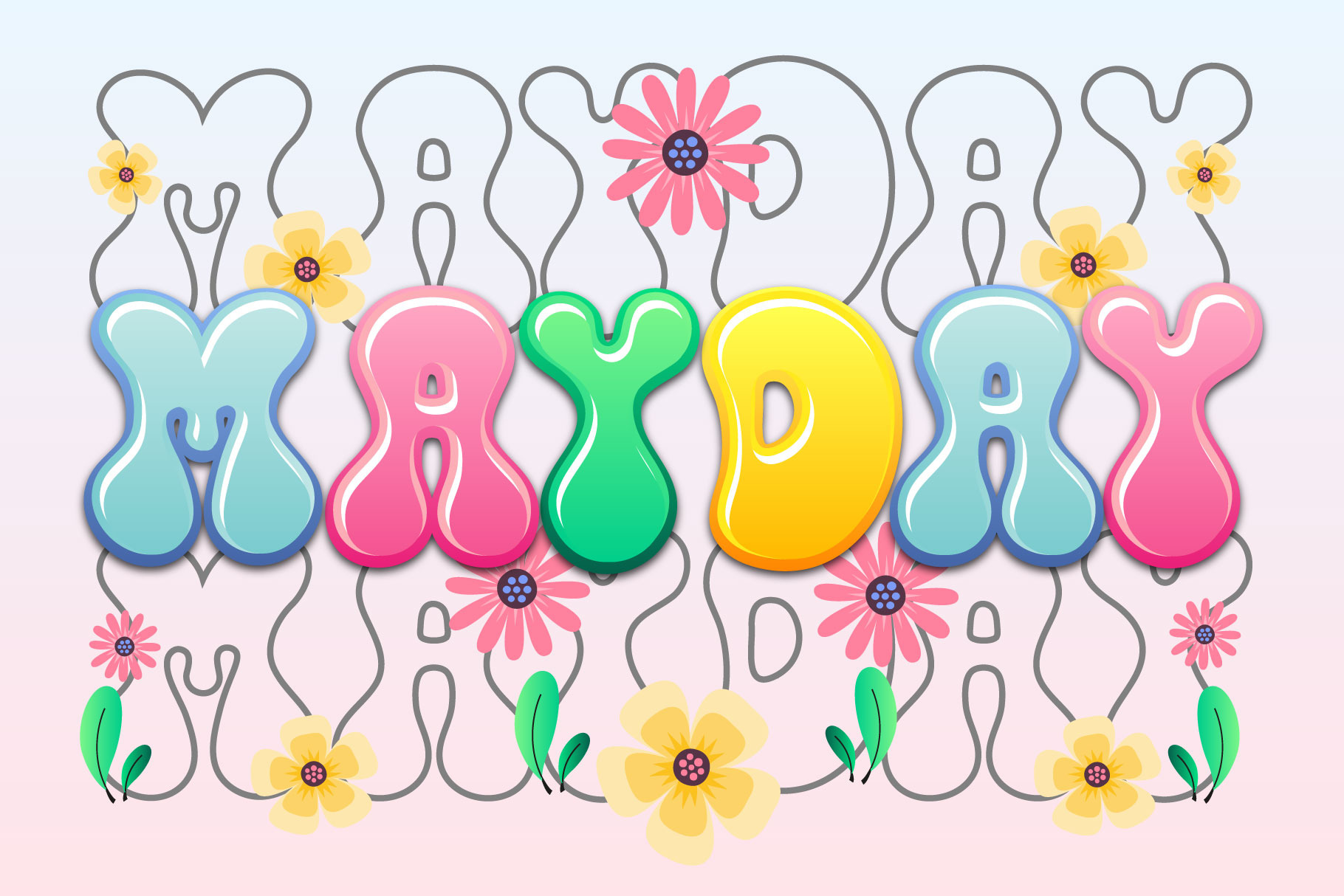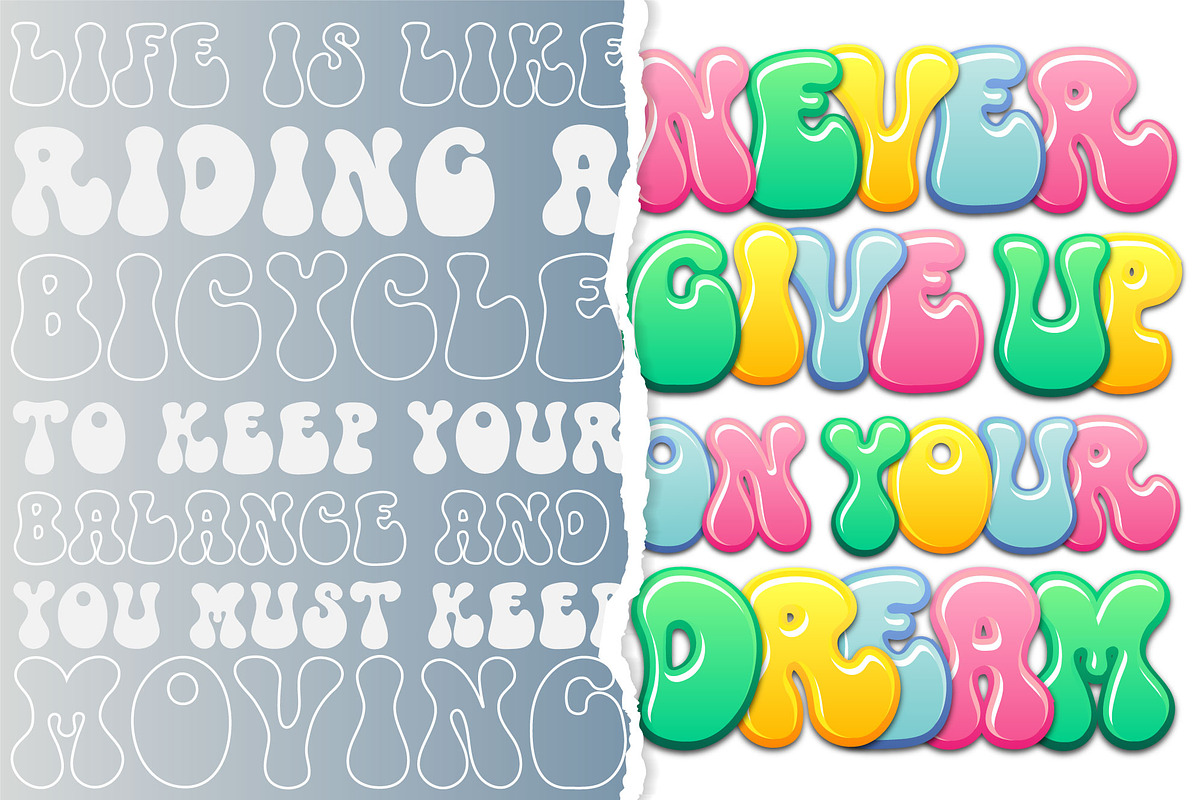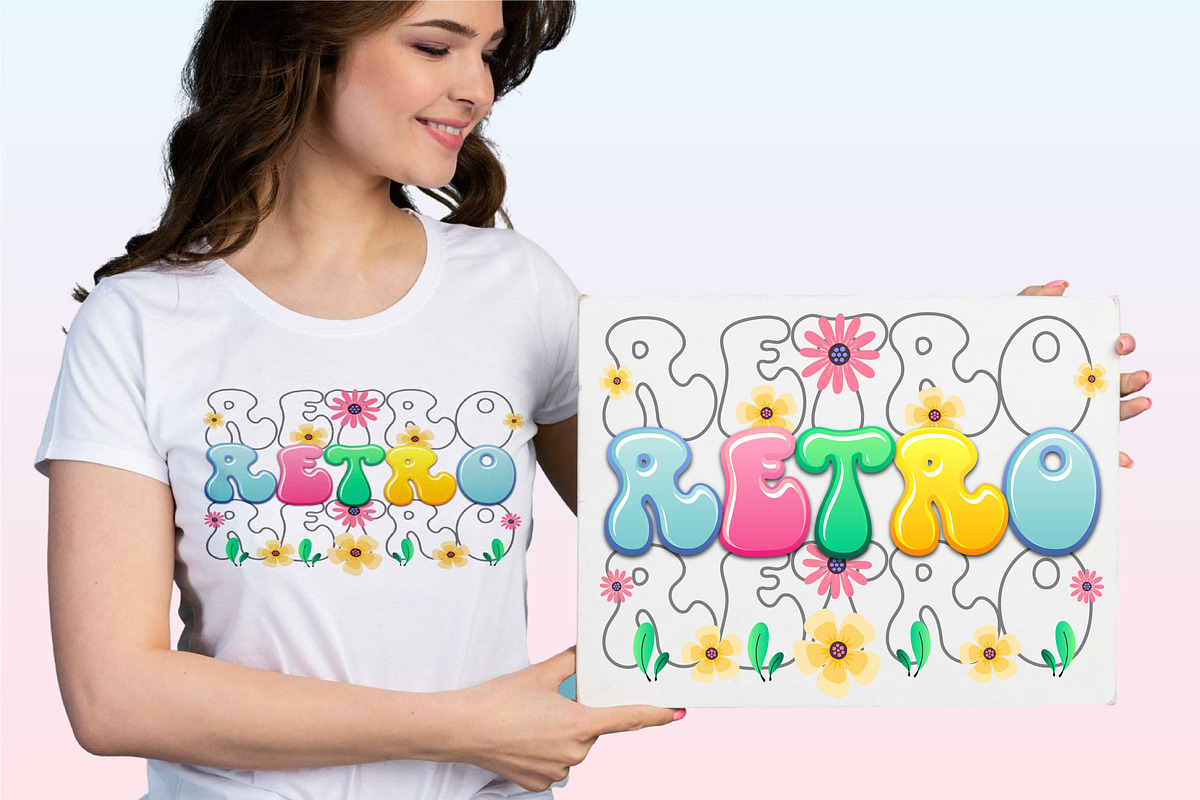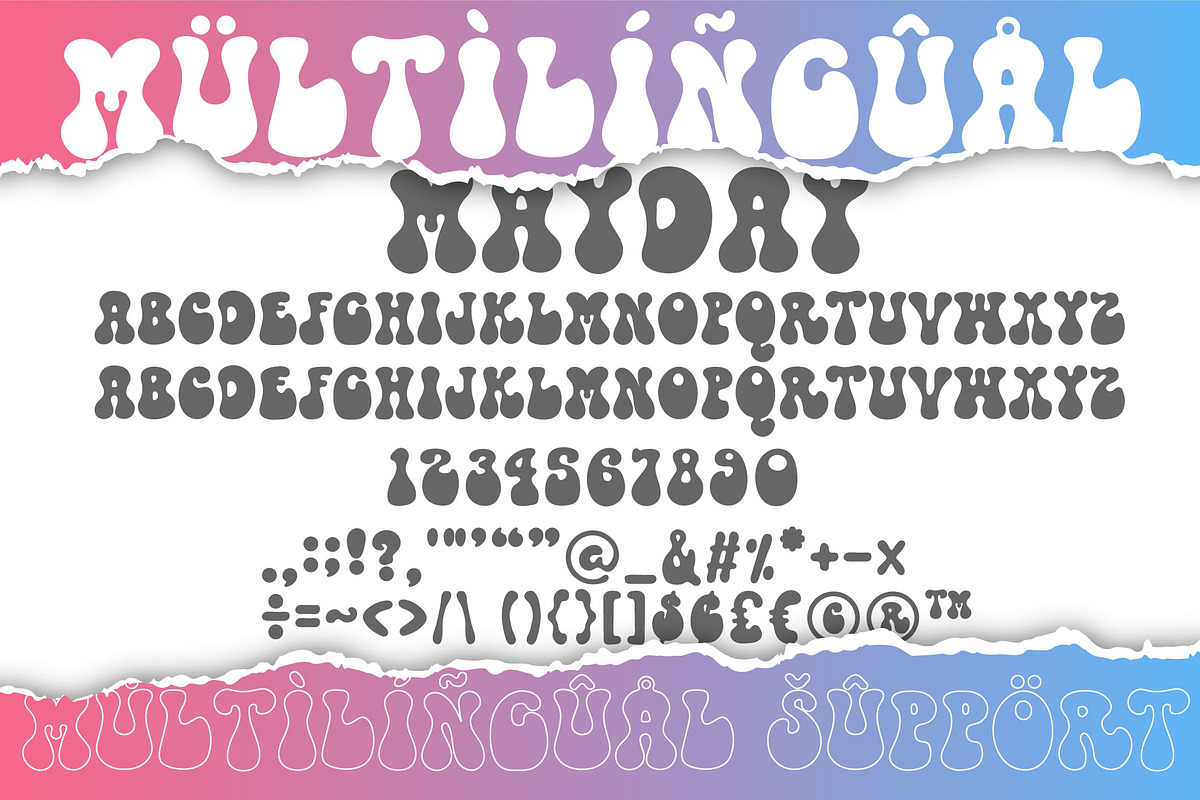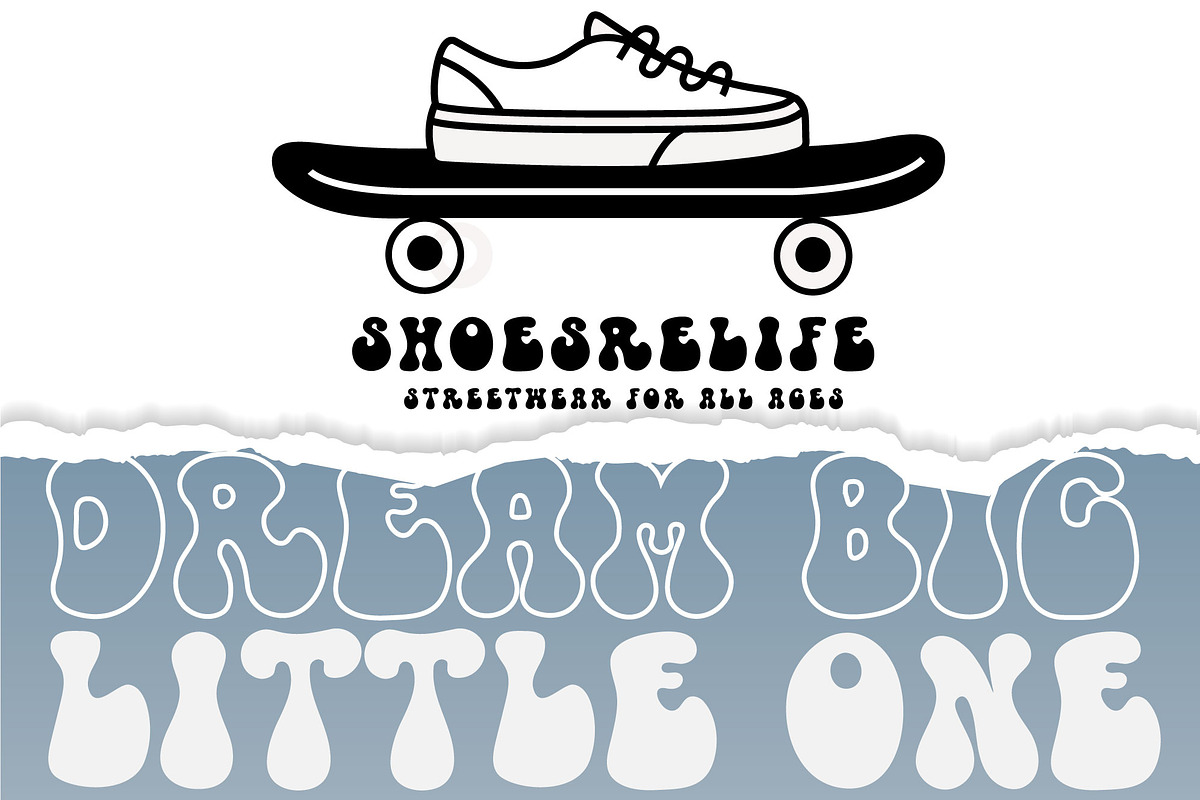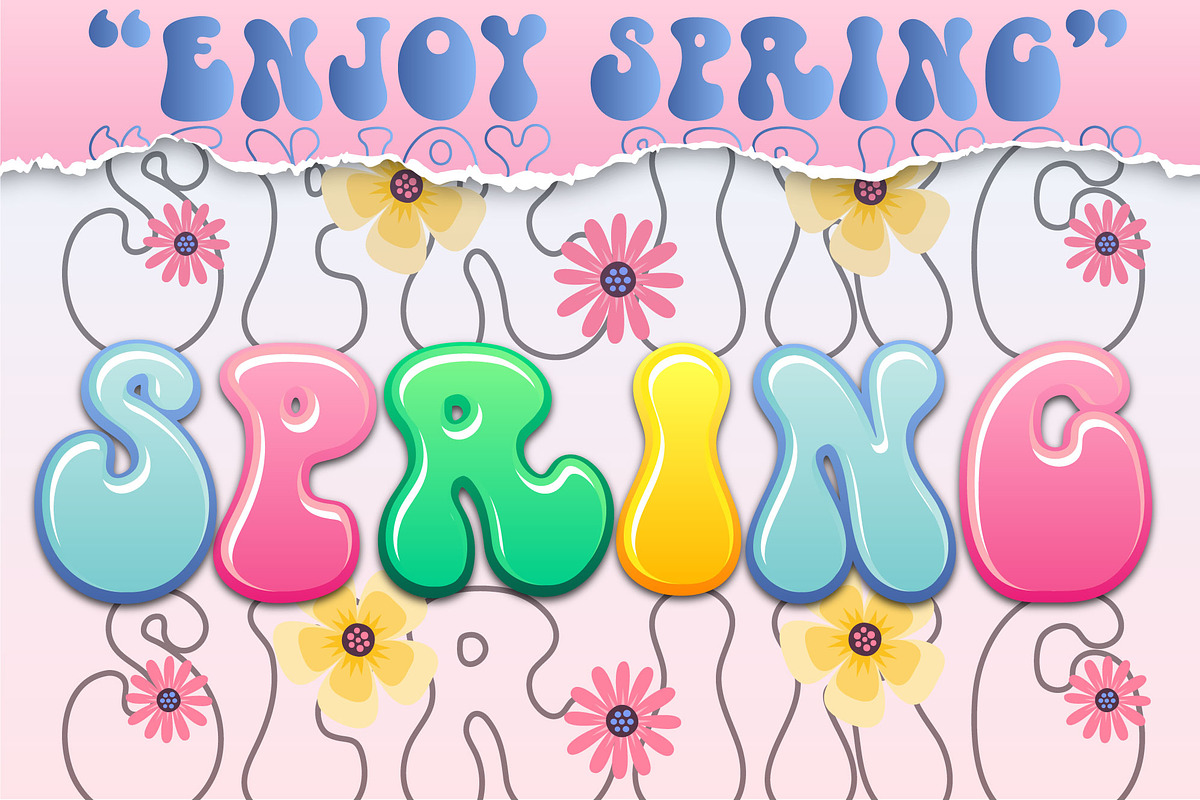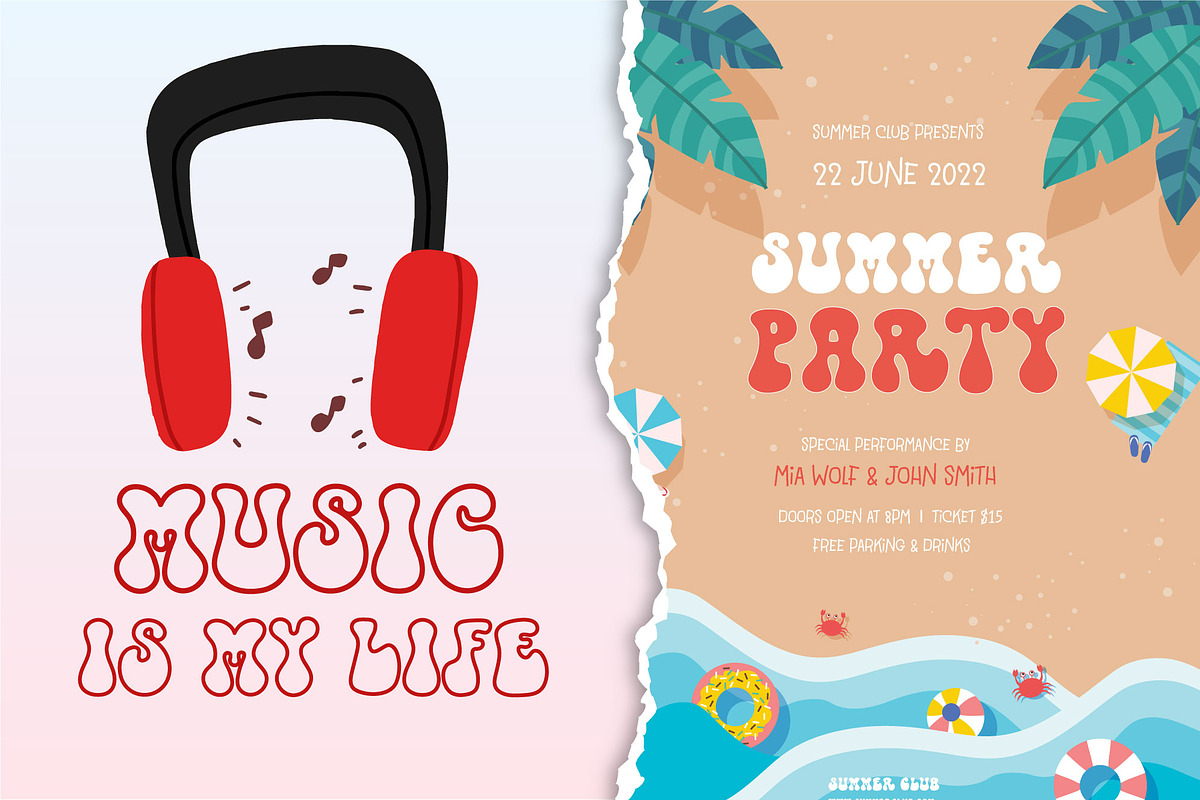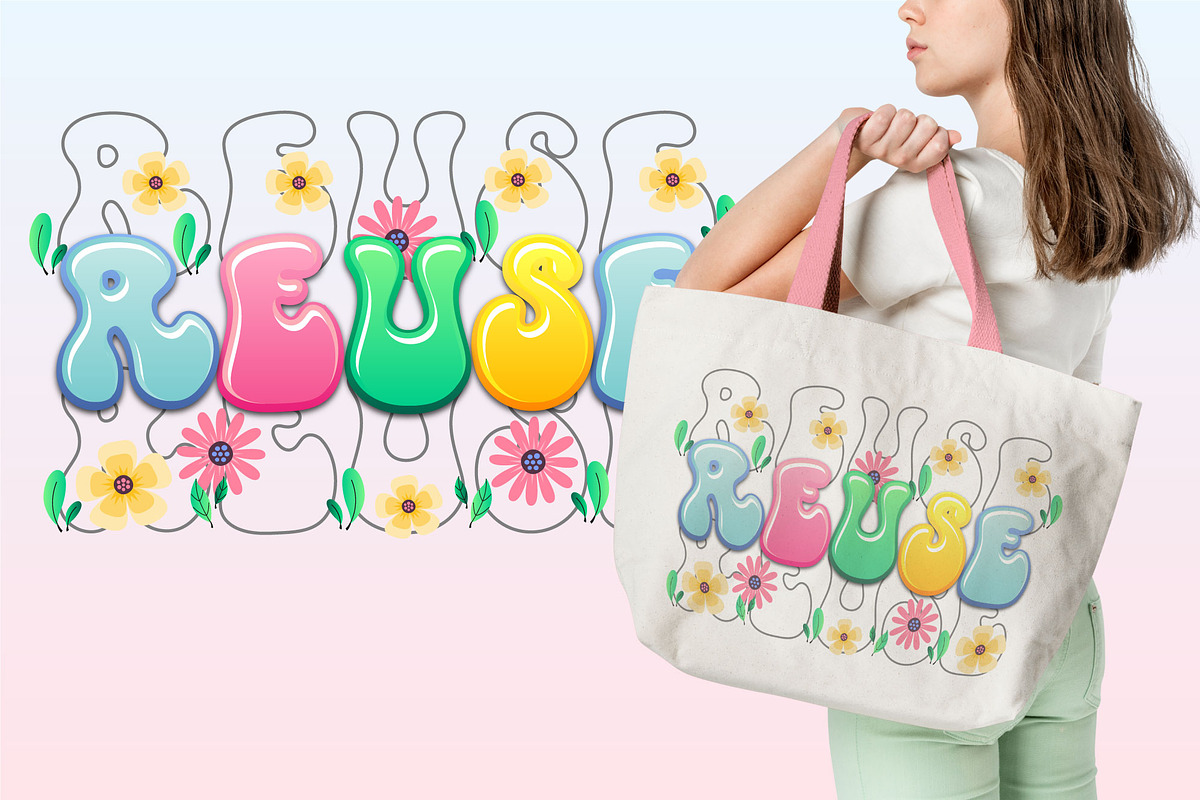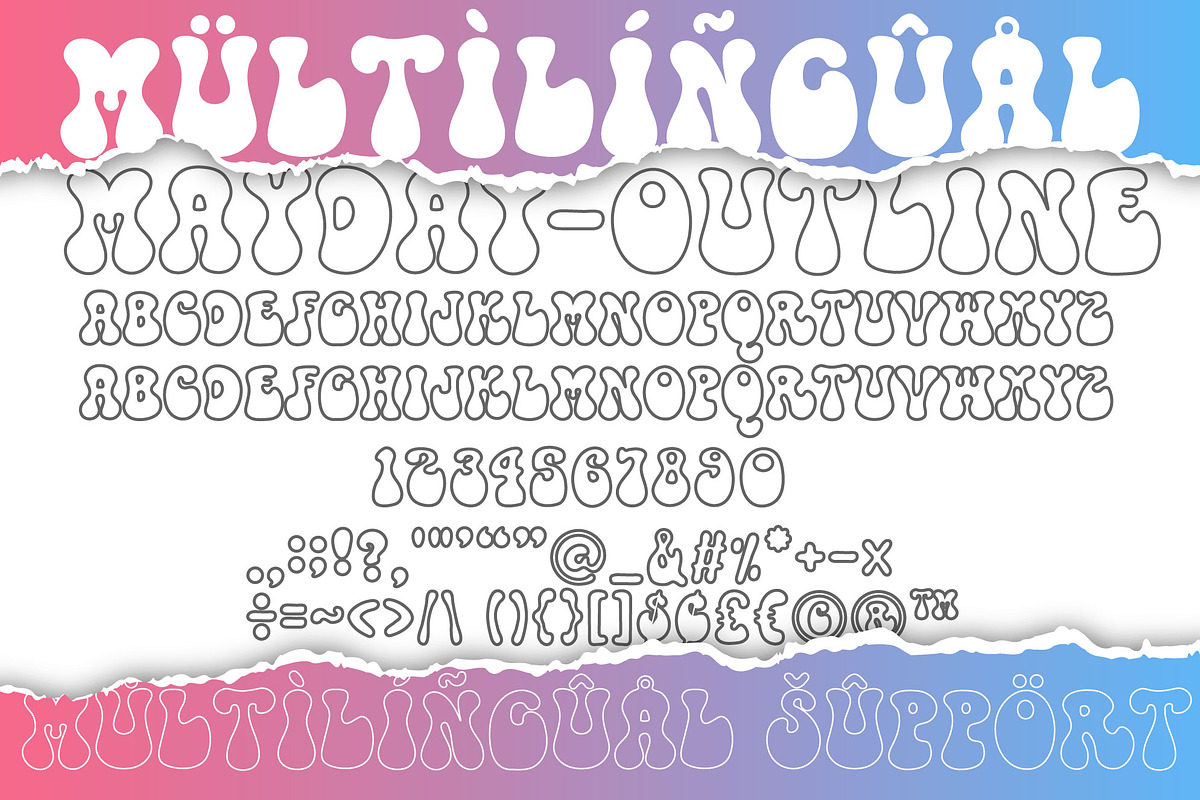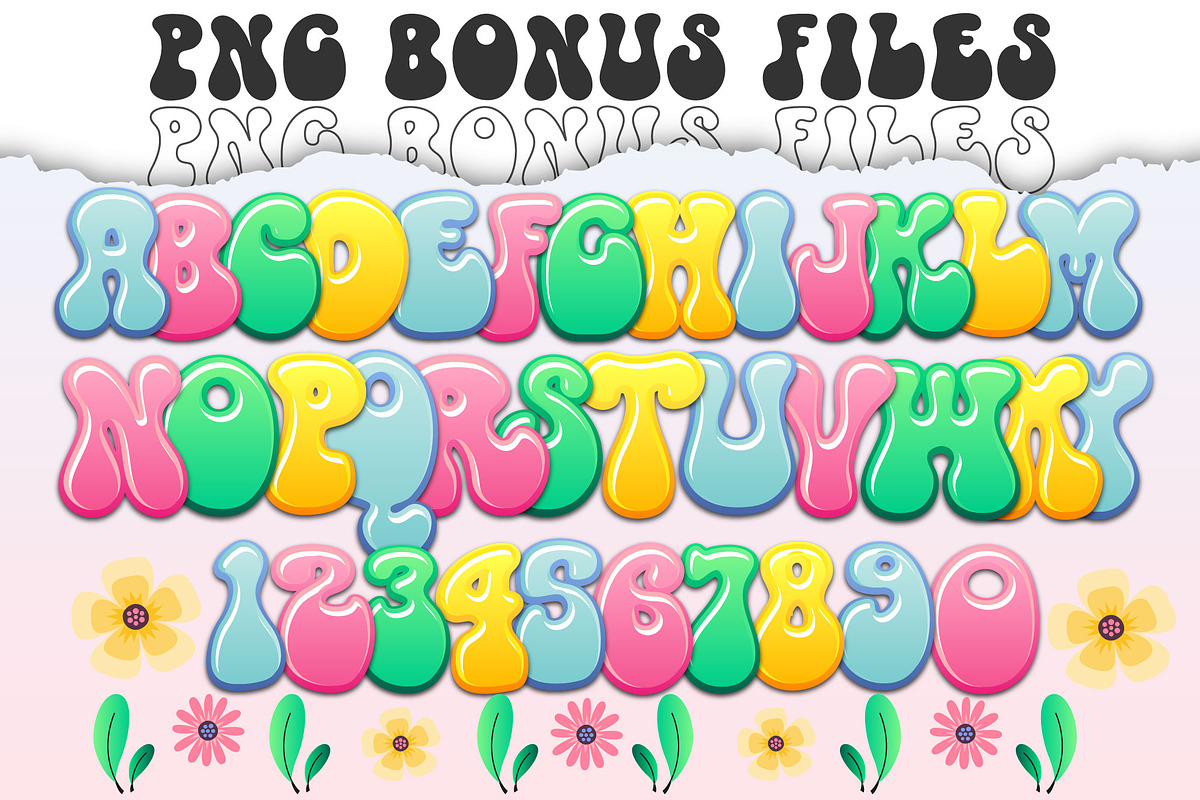
Mayday Font
Mayday is an exuberant display and color font that will fill your designs with cheerfulness! Use it on covers, posters, spring designs, marketing materials, or anything that needs to pop!